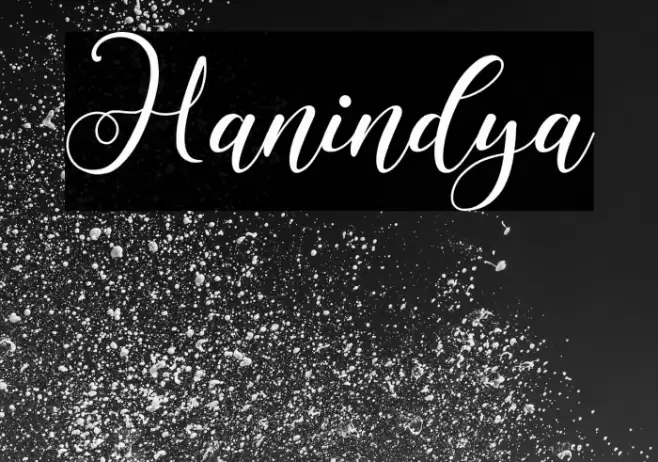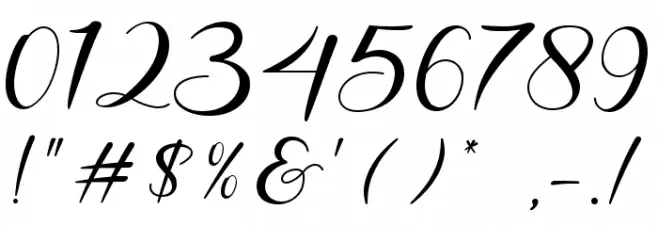
Hanindya Font
Hanindya Description
This elegant script font features intricate swirls and flourishes, giving it a sophisticated and decorative appearance. The uppercase letters are adorned with elaborate curls, while the lowercase letters maintain a fluid, cursive style. The numerals are sleek and slightly elongated, complementing the overall aesthetic. Special characters are designed with the same attention to detail, making this font suitable for artistic and formal applications. Its graceful curves and high contrast in stroke thickness add to its charm, making it ideal for projects that require a touch of elegance and creativity.
An elegant script font with intricate swirls and high contrast strokes from Regular fonts.
- Proposed Projects: Wedding invitations, luxury branding, greeting cards, and decorative signage.
- Use Case: Logos, Invitations, Decorative text